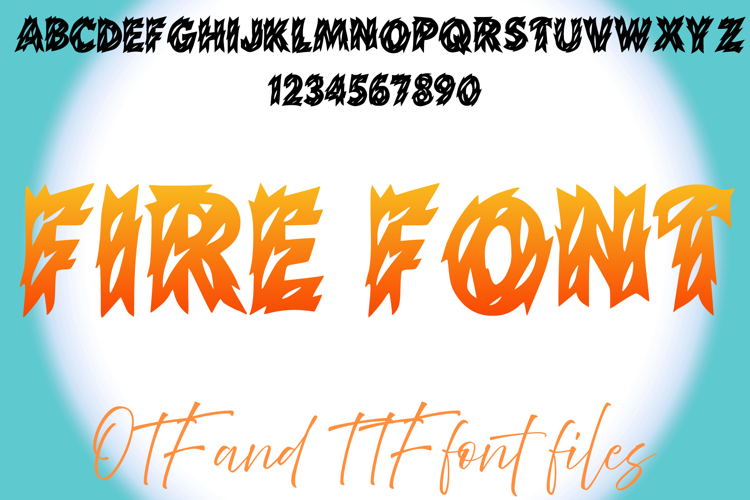
Fire Flames Font
Fire Flames is a fiery color font, featuring flames that dance across each letter for a fiery, dynamic effect. Fire Flames is a font that brings the heat to your designs. With its vibrant and realistic fire flame effect, this color font adds a dynamic and fiery touch to any text. Perfect for making a statement on posters, t-shirts, and other designs, this font is sure to set your work ablaze.
-It includes uppercase letters, numbers and punctuation.